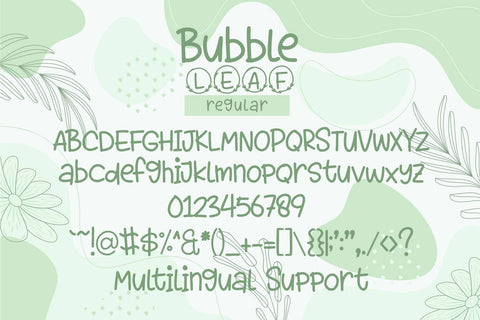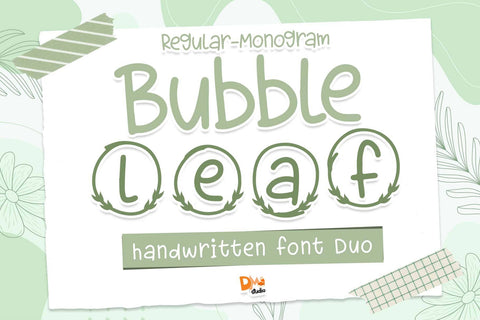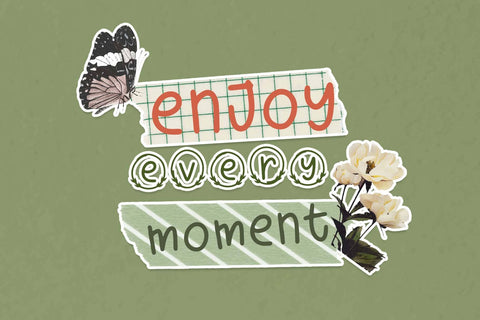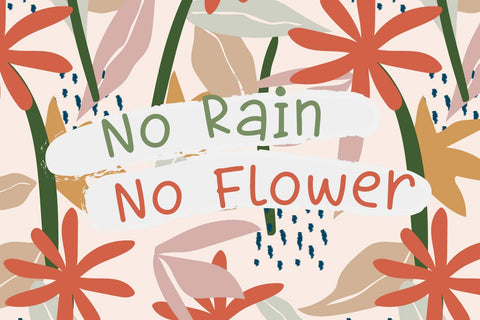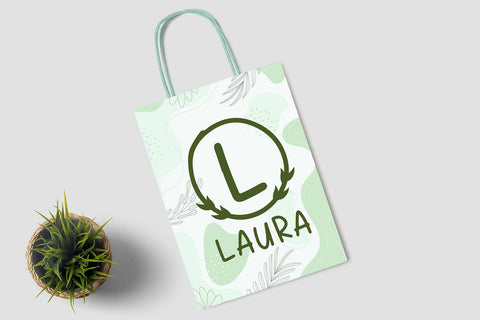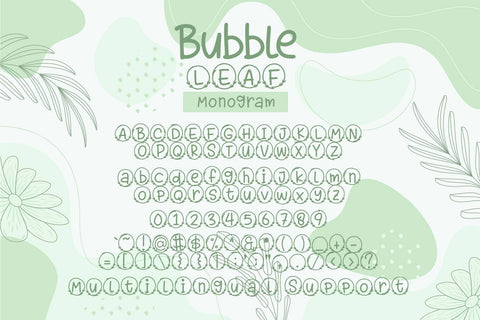
Bubble Leaf Font
Design stunning monograms effortlessly with the Bubble Leaf Font Duo Monogram. This versatile font duo includes a bold bubble font and delicate leaf accents, perfect for personalizing your projects. Download now for free Personal Use!
Bubble Leaf Font Duo Monogram offers a delightful combination of playful bubbles and elegant leaves, perfect for adding a touch of whimsy and sophistication to your designs. This versatile font duo is ideal for monograms, logos, branding, invitations, and more, allowing you to create personalized and stylish compositions effortlessly.
- Playful and Elegant Design: The Bubble Leaf Font Duo combines playful bubbles with elegant leaf elements, striking the perfect balance between whimsy and sophistication.
- Versatile Monogram Font: Designed specifically for monograms, logos, and branding projects, offering endless possibilities for customization and personalization.
- Easy-to-Use Monogram Creator: Combine letters, bubbles, and leaves effortlessly to create unique and eye-catching monograms.
- Uppercase Letters: The font duo includes uppercase letters suitable for creating monograms and logos with a bold and eye-catching appearance.